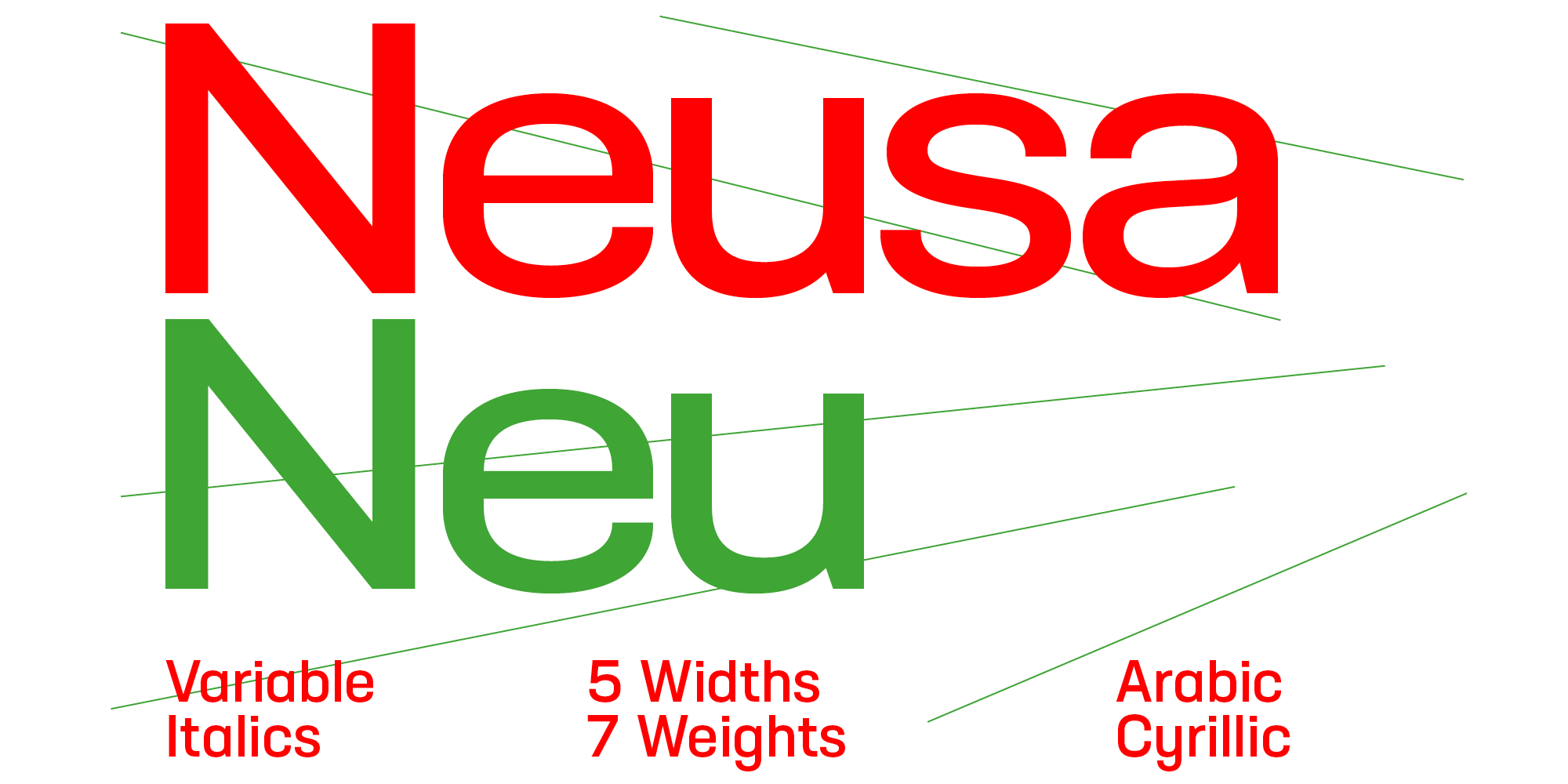
Searching for a versatile and stylish typeface that fits perfectly into modern and creative designs? Neusa Neu Font Free Download offers a clean, geometric structure with a contemporary flair, making it a superb choice for branding, editorial layouts, websites, and more.
Whether you’re crafting a bold headline or designing a minimalist logo, Neusa Neu Font Free Download adapts beautifully to a wide range of creative needs. Its modern aesthetics and professional touch make it a favorite among designers who want their work to stand out with clarity and style.